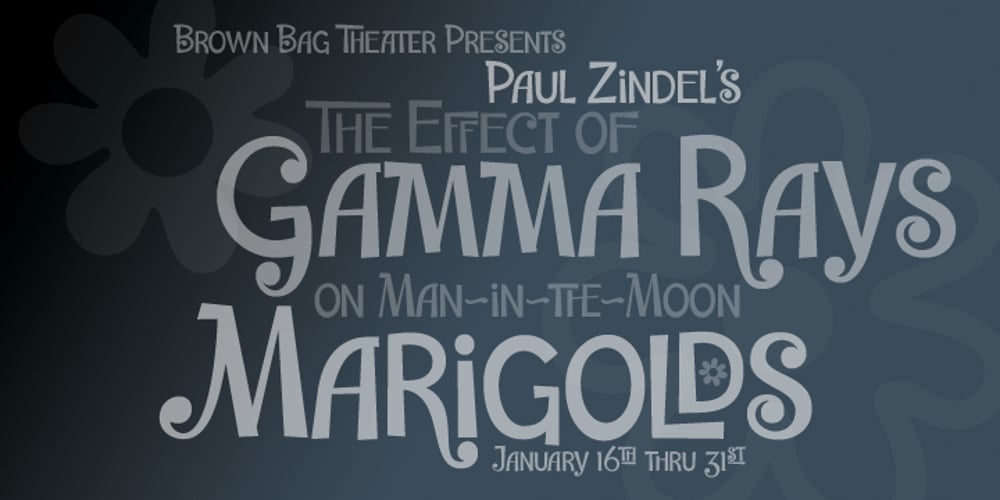
Miss Kitty Delux
Miss Kitty Delux font
Miss Kitty Delux Font Family was designed by Patricia Lillie and published by Patricia Lillie. Miss Kitty Delux contains 1 styles and family package options. A little cartoony, a little retro, a little coquettish, Miss Kitty Delux is ready for fun. Used in a non-OpenType aware application, she’s a lively little typeface. Use her in an OpenType aware application and she really shines: Contextual Alternates automatically dress her up the way she was meant to be. Gussy her up even more with swashes, ornaments, and more ligatures than you can shake a stick at. Use Stylistic Sets to dress her down or dress her up even more. Take her out to play!